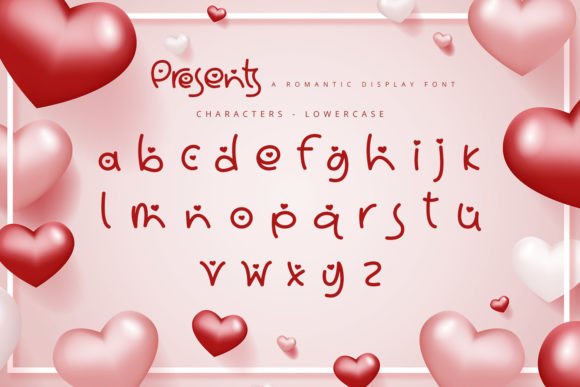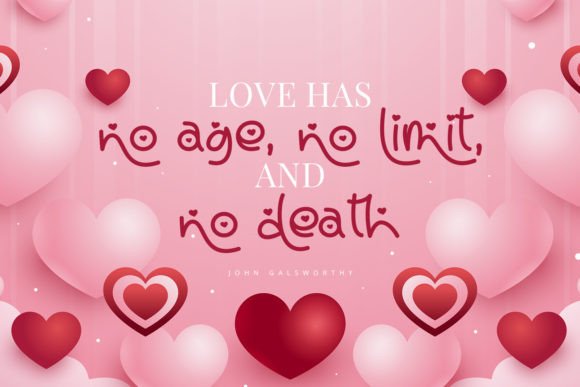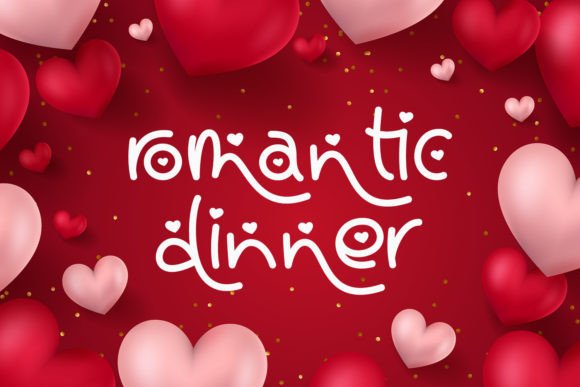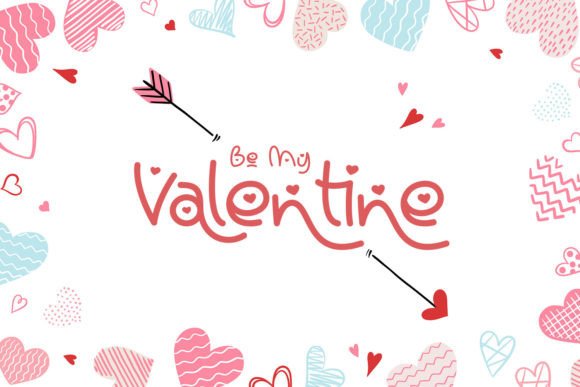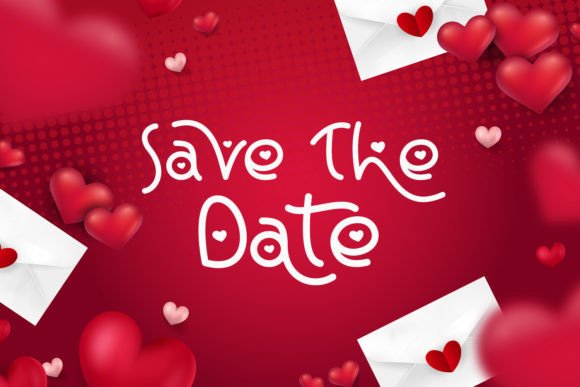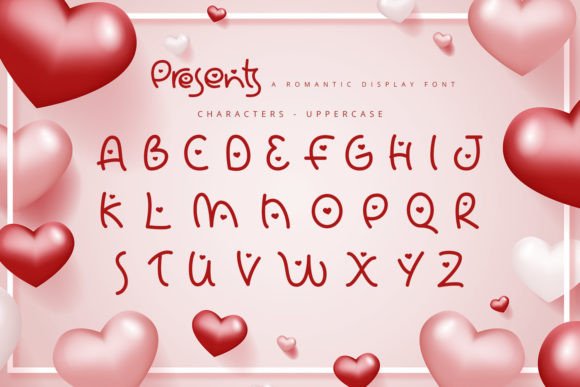
Introduction to Presents Font
As you sit down to design a new logo for your client, or create a beautiful poster for a special event, you’re met with the daunting task of choosing the perfect font. You scroll through your design resources, searching for that one font that captures the essence of your creative vision. And then, it happens – you stumble upon the Presents Font, a romantic and elegant font that exudes a sense of whimsy and wonder.
The Presents Font is more than just a pretty face – it’s a high-quality design resource that can elevate your creative project to new heights. With its transparent background and free download option, you can use it to create stunning branding, logos, and packaging that will leave a lasting impression on your audience.
For designers, the Presents Font is a valuable asset that can add a touch of magic to any project. Whether you’re working on a clothing label, a book cover, or a special event invitation, this font is sure to impress. So why settle for a generic font when you can add a dash of romance and sophistication to your design with the Presents Font?
Presents Font
- High-quality font design with a transparent background, perfect for creative projects.
- Features a unique, modern design with a focus on elegance and sophistication, suitable for various applications.
Honest Review: Presents Font
I recently had the chance to work with the Presents Font, and I must say it’s a solid addition to any designer’s toolkit. This high-quality font is perfect for creative projects that require a festive and playful touch.
- ✨ Great for festive designs, such as holiday cards and gift tags
However, there are a few limitations to be aware of. The font is a bit on the simple side, which may not be ideal for more complex design projects.
- ⚠️ Limited character set may not be suitable for longer texts
- ⚠️ May not be the best choice for designs that require a lot of customization
Overall, I’d say the Presents Font is a great addition to any designer’s toolkit. While it may not be perfect, it’s a solid choice for designers who are looking for a high-quality, free font that’s perfect for creative projects.
Presents Font
The Presents Font is a high-quality design resource ideal for creative projects that require a unique and festive touch. It’s available for free download, making it an excellent addition to any design collection.
Some tips for getting the most out of Presents Font include using it for invitations, party decorations, and gift tags. You can also use it to create custom labels and stickers. The transparent background feature of Presents Font makes it ideal for layering text over images and graphics.